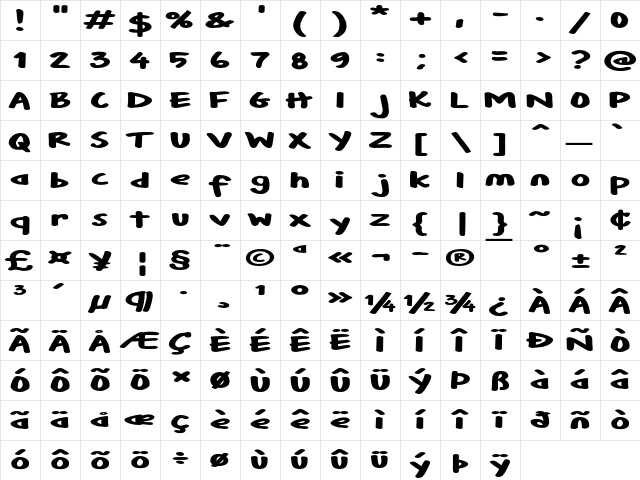
Dorolla Extra-expanded Bold
Style: Extra-expanded Bold
Dorolla Family
Dorolla Extra-expanded Bold
Design Context for Dorolla
Dorolla is a composed and adaptable typeface that performs quietly and consistently across a wide range of design contexts. Its bold stroke weight gives it real presence on the page.